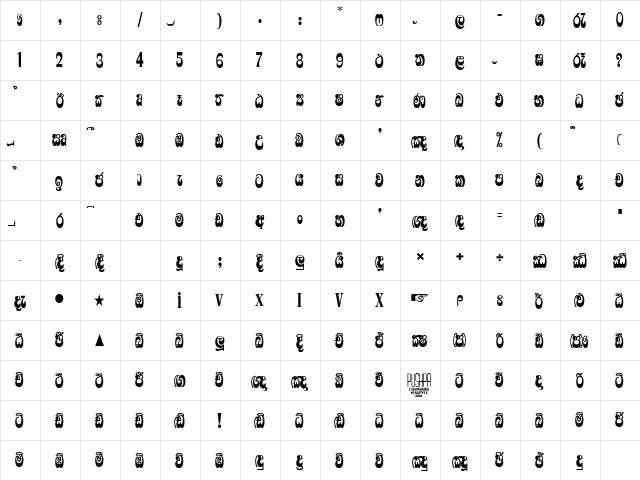
FMRajantha x
Design Context for FMRajantha Typeface
FMRajantha is a composed and adaptable typeface that performs quietly and consistently across a wide range of design contexts.